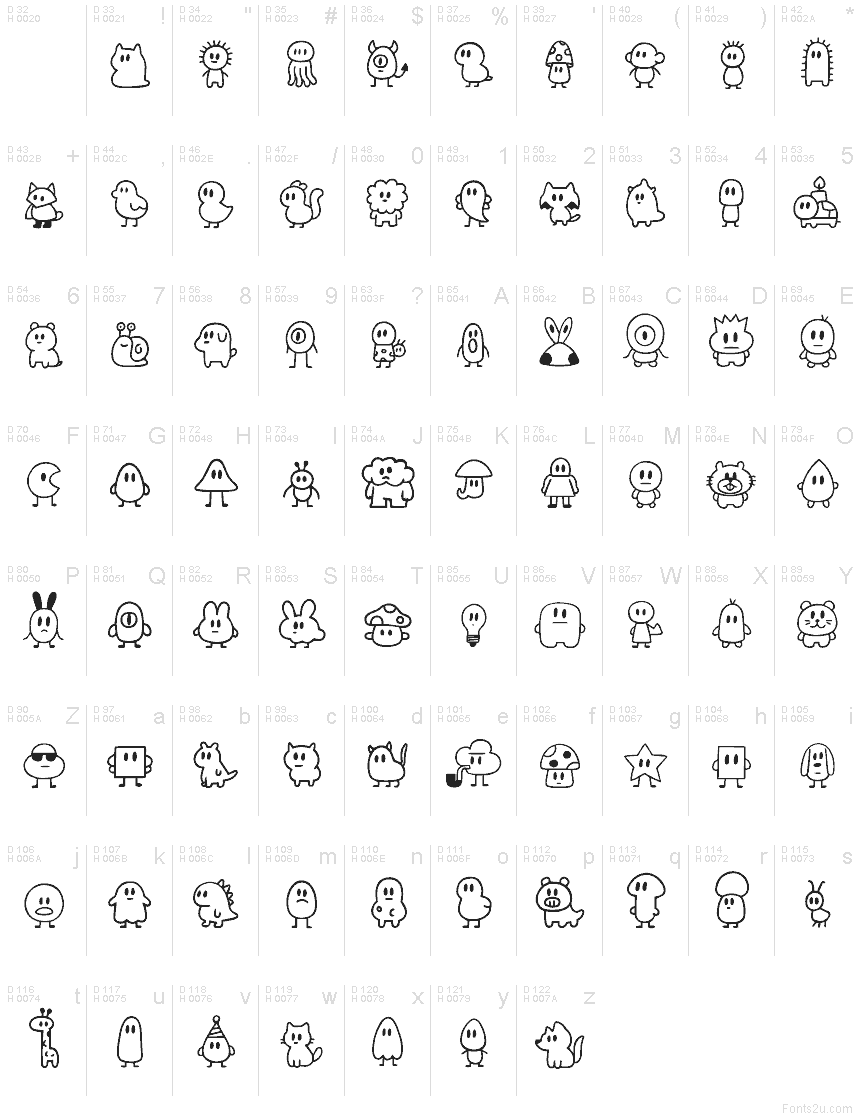
Flametick
Flametick font by BlackFridayFont FMF is a free cartoon dingbat font. It parades a cast of plump, round-edged mascots drawn with steady, inky lines—simple eyes, stubby limbs, and tons of expression. The forms feel squishy and friendly, giving you instant character without fussing over illustrations or stock art.
Using Flametick, you can drop personality into kids’ posters, classroom labels, sticker packs, birthday invites, playful packaging, app onboarding moments, and lighthearted social posts. The consistent stroke weight makes the set read clearly at small sizes, yet it pops when enlarged. Pair this free font’s characters with a soft, rounded sans for text, and let the icons lead the layout.